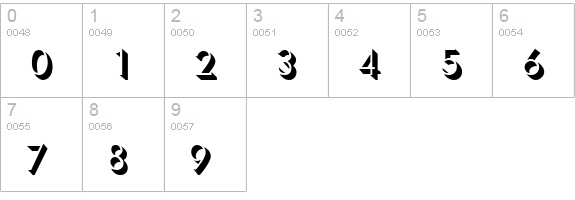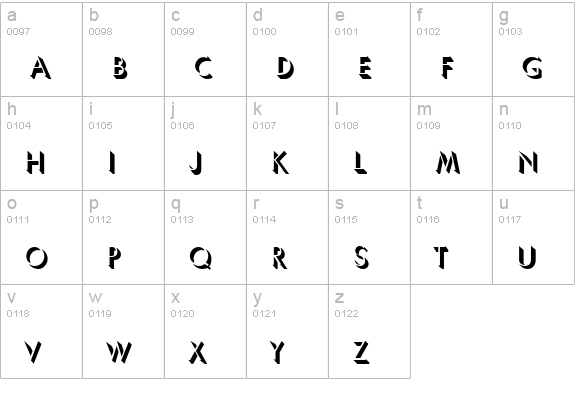
UltraShadow Regular Font Details
UltraShadow Regular is the standard, neutral variant in the UltraShadow typeface family \xE2\x80\x94 well suited to general body text, paragraphs, and standard typographic work.
UltraShadow Regular is a captivating and versatile font that will add a touch of elegance and sophistication to any design project. Its sleek and modern aesthetic makes it perfect for a wide range of applications, from logos and branding materials to website designs and social media graphics. This font features a unique combination of bold lines and delicate shadows, creating a stunning three-dimensional effect that is sure to grab attention. The meticulous attention to detail in each letterform gives UltraShadow Regular a sense of precision and professionalism. Whether you're looking to create eye-catching headlines or stylish body text, this font has got you covered. Its clean and legible design ensures that your message will be easily understood and effortlessly conveyed. And the best part? UltraShadow Regular is available for free! You can download it at FontsMarket.com, a trusted and reliable source for high-quality fonts. With just a few clicks, you can bring this remarkable font into your creative arsenal, ready to make a lasting impression on your audience. So why wait? Unlock the potential of your designs and give them a touch of refinement with UltraShadow Regular. Download it today and let your creativity soar.